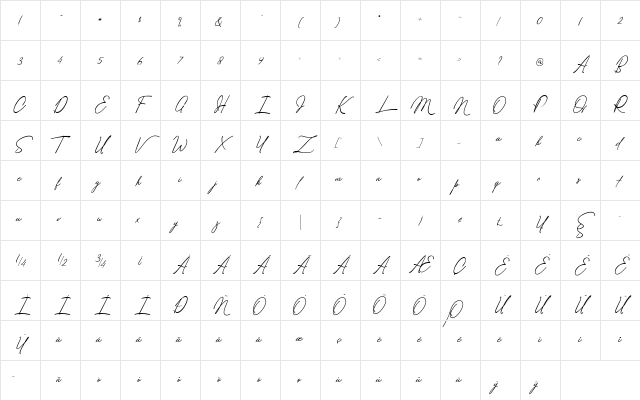
Complete Safarnama Signature Regular glyph index. Displaying only characters natively supported by Safarnama Signature Regular font.
Safarnama Signature is a composed and adaptable typeface that performs quietly and consistently across a wide range of design contexts.